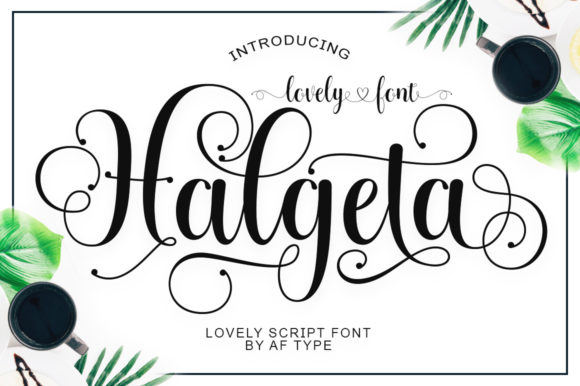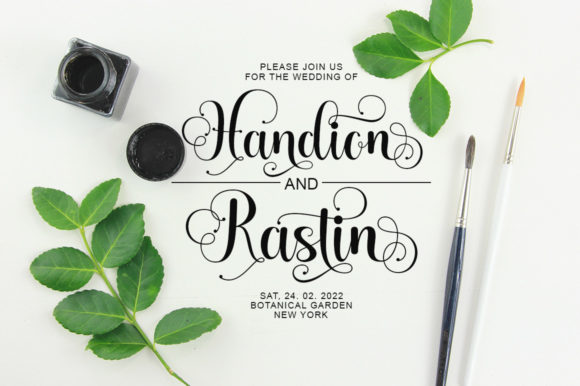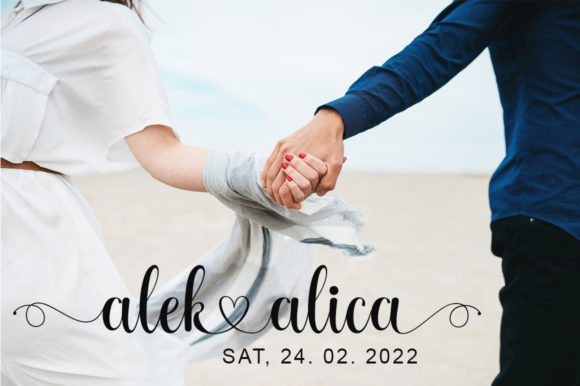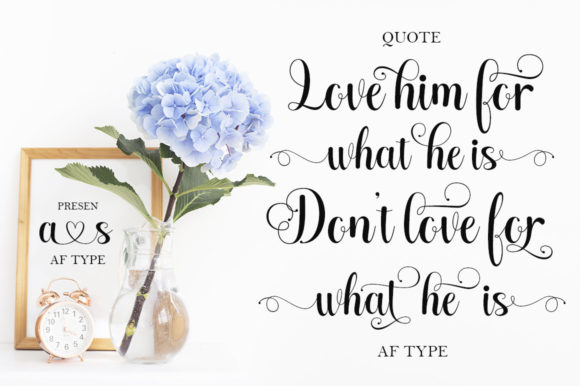
About Halgeta Lovely Script Font
Halgeta Lovely Script is a typeface that encapsulates the essence of romance and sweetness through its calligraphic style. With characters that gracefully dance along the baseline, this font exudes a sense of whimsy and charm that adds a touch of elegance to any design.
The casual yet elegant touch of Halgeta Lovely Script makes it a versatile choice for a wide range of creative projects. Whether you’re designing wedding invitations, thank you cards, quotes, greeting cards, logos, or business cards, this font lends a unique and enchanting aesthetic to your work.
The font’s PUA encoding is a valuable feature that grants you access to a wealth of glyphs and swashes with ease. This means you have the creative freedom to customize and embellish your designs with a variety of decorative elements, ensuring that your creations are truly one-of-a-kind.
Halgeta Lovely Script is particularly well-suited for projects that require a sense of romance and sentimentality. Its flowing and fluid letterforms contribute to an organic and heartfelt look, making it an ideal choice for wedding-related designs, love-themed campaigns, and any project that aims to evoke feelings of warmth and affection.
In addition to its applicability in printed materials, Halgeta Lovely Script can also enhance your online presence. Its eye-catching and captivating style is perfect for social media graphics, blog headers, website banners, and other digital assets that require a touch of elegance and personality.
The font’s versatile nature extends beyond romantic themes. Its balance between casual and elegance allows it to seamlessly adapt to a variety of design contexts, ensuring that it remains a valuable asset in your font collection.
In summary, Halgeta Lovely Script is a romantic and sweet calligraphy typeface that strikes the perfect balance between casual charm and elegant sophistication. Its PUA encoding empowers you to explore a world of creative possibilities with its diverse range of glyphs and swashes. Whether you’re crafting wedding invitations, branding materials, or digital graphics, this font adds a unique and enchanting flair to your designs that is sure to captivate and resonate with your audience.